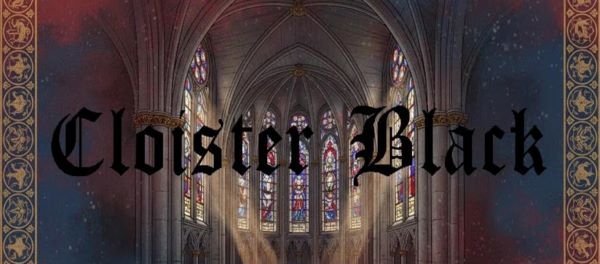
Cloister Black Font
Cloister Black Font by Dieter Steffmann is a blackletter typeface with deeply ornate, medieval-style letterforms that carry the visual authority of illuminated manuscripts and centuries of typographic tradition. Its dramatic stroke contrasts and decorative serifs give any text an immediate sense of historical weight.
Certificates, book covers, fantasy game titles, tattoo-inspired artwork, and gothic branding all find in Cloister Black a typeface that commands both attention and respect. Completely free to use.